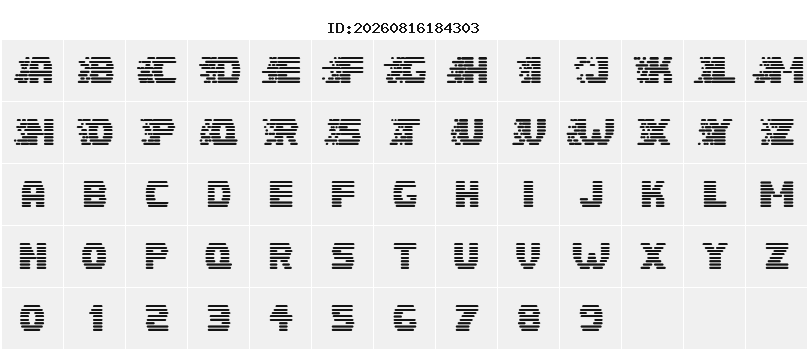
• Font Name: Speedster
• Full Font Name: Speedster
About Speedster.ttf
Speedster.ttf is a modern, elegant sans-serif font designed for ultimate readability and visual harmony. Perfect for branding, headlines, web design, and print materials.